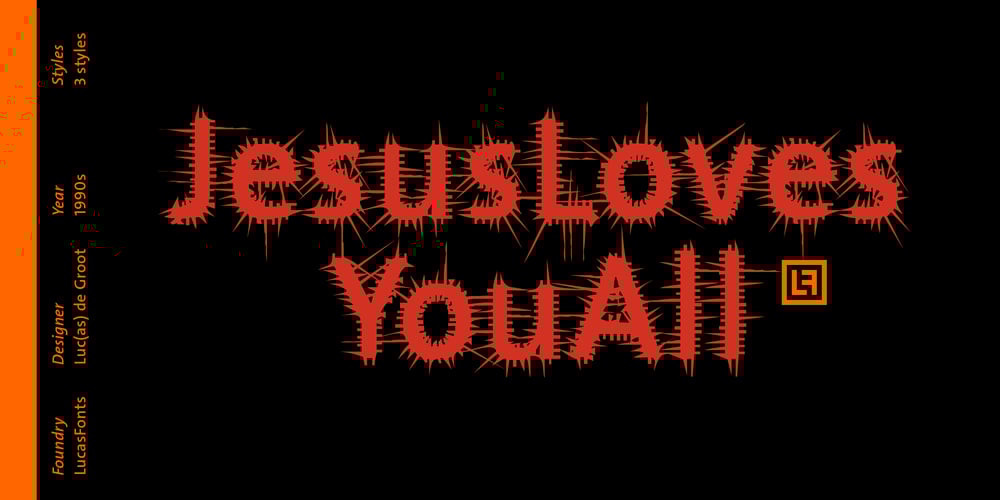
JesusLovesYouAll
JesusLovesYouAll font
JesusLovesYouAll Font Family was designed by Luc(as) de Groot and published by LucasFonts. JesusLovesYouAll contains 3 styles and family package options. Almost every type designer feels the need, from time to time, to interrupt his or her serious work on complex text type systems for something more playful. In Luc(as)’s case this has often meant designing more typefaces. In the early 1990s, while working on Thesis, Luc(as) drew several display faces which were based on the shapes of TheSans but were either de(con)structive versions or experimental variations. Jesus Loves You All is a heretic thorny typeface vaguely based on the outlines of TheSans. Jesus Loves You was given a remarkable three-dimensional treatment in Abbott Miller’s Dimensional Type project.